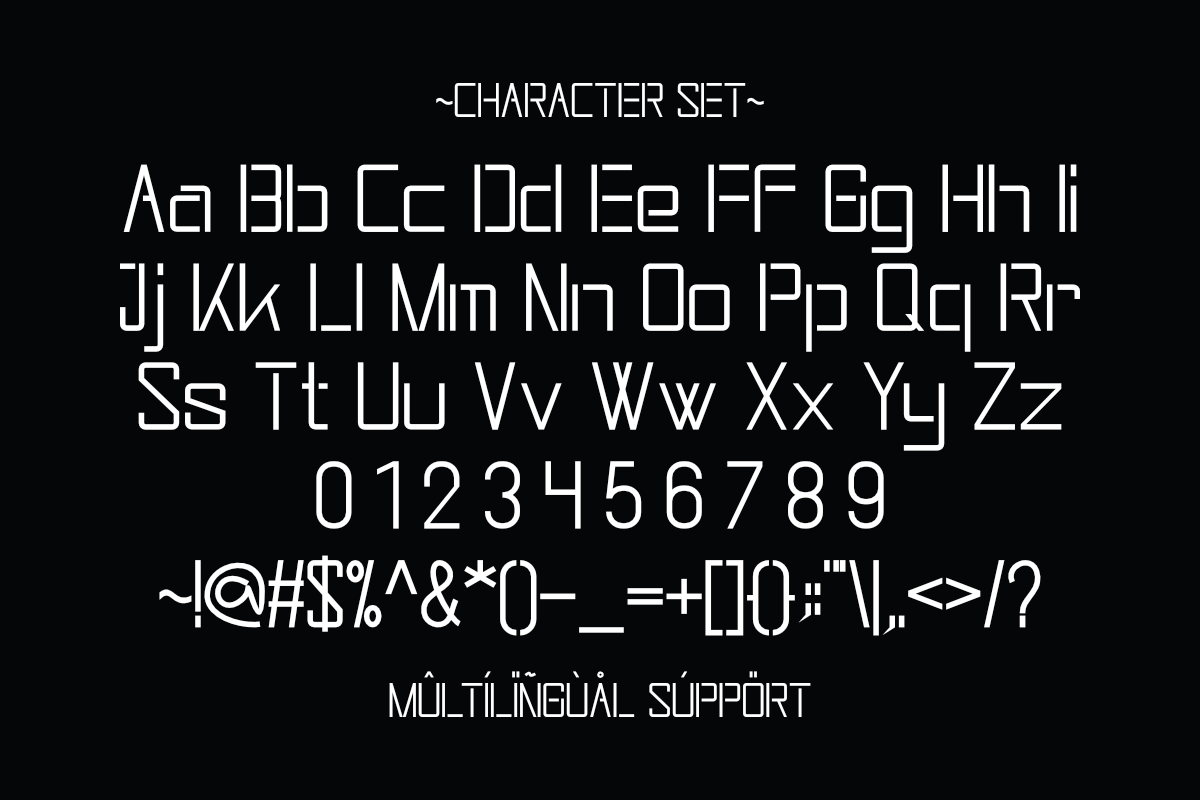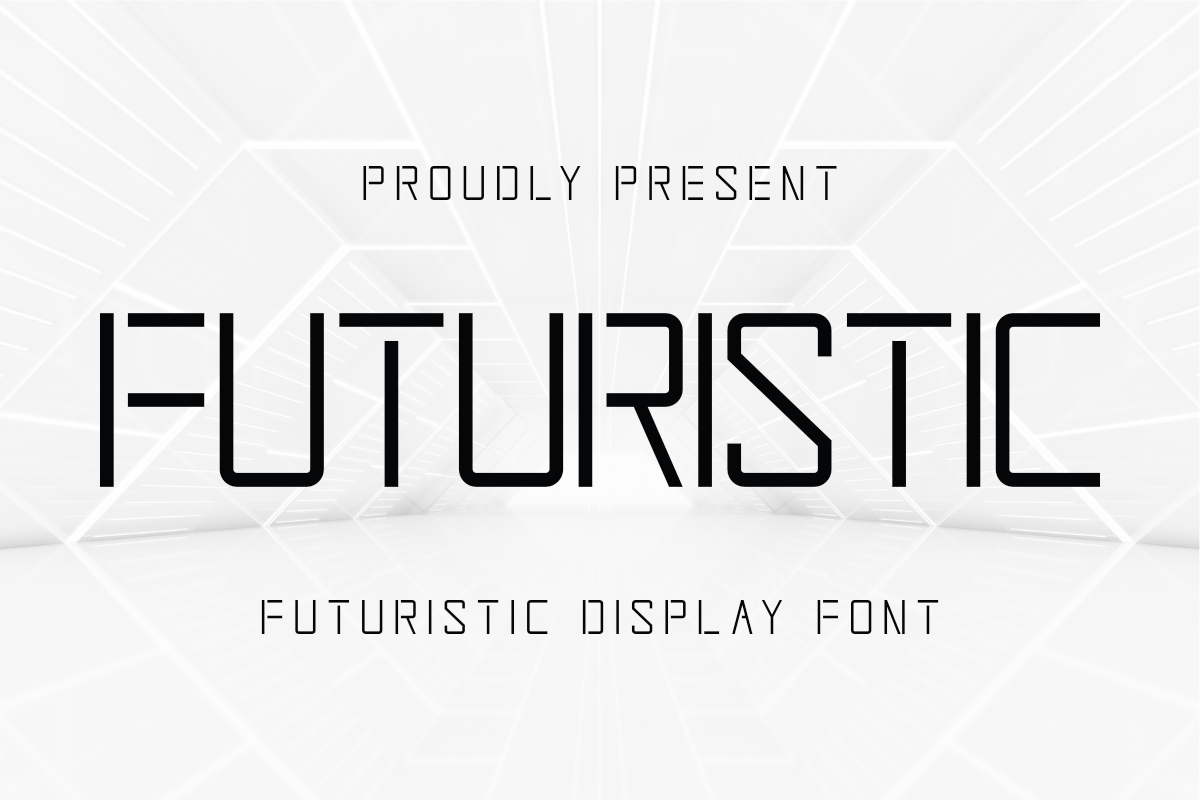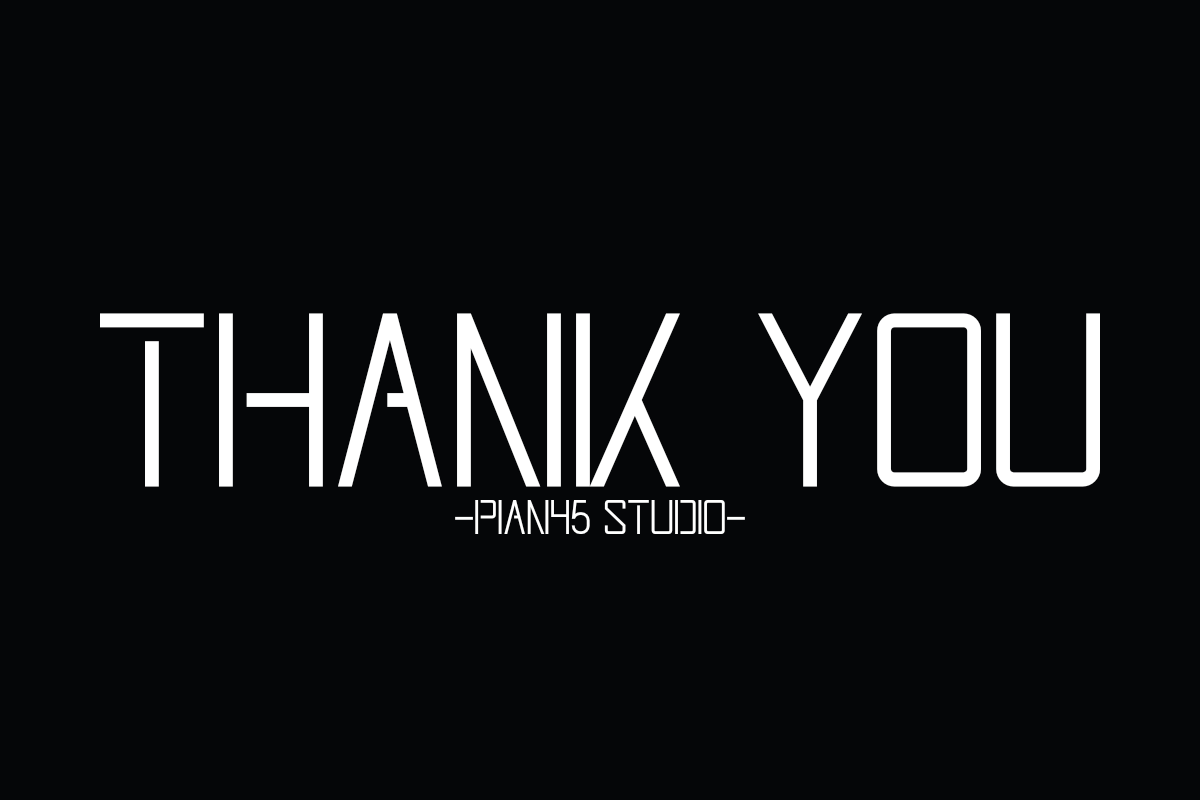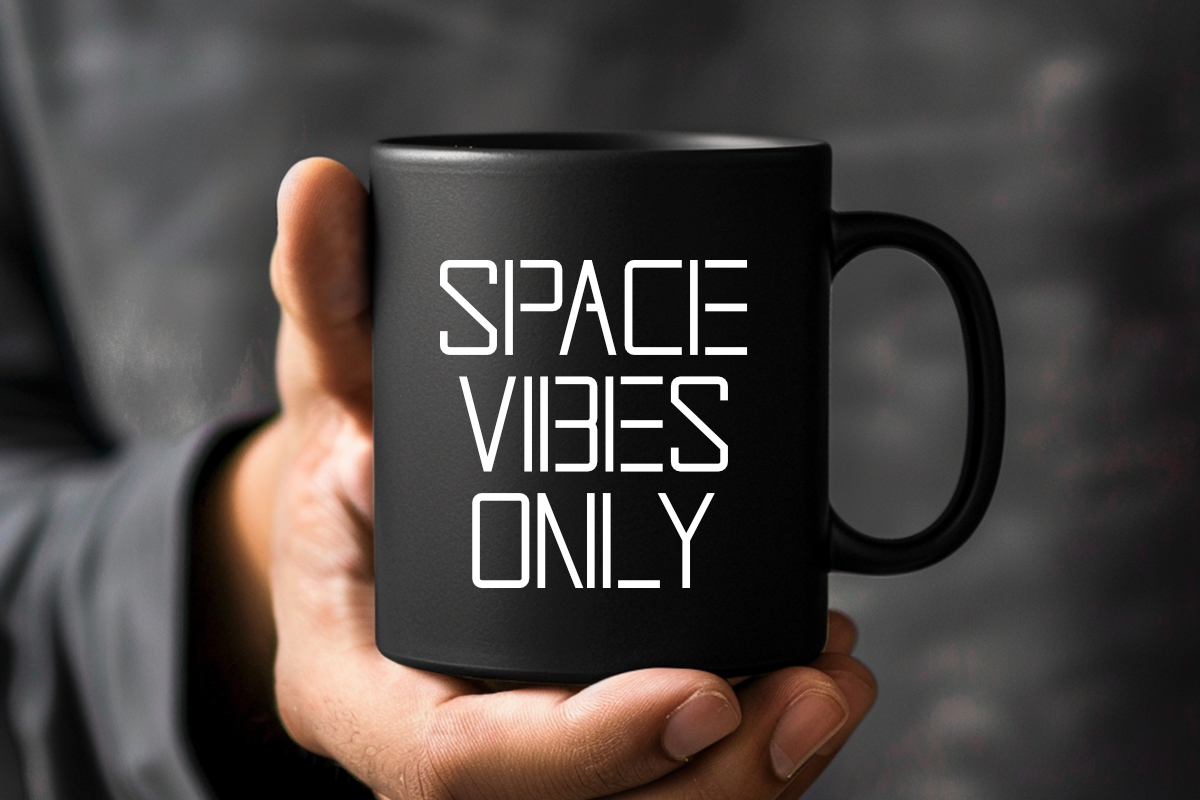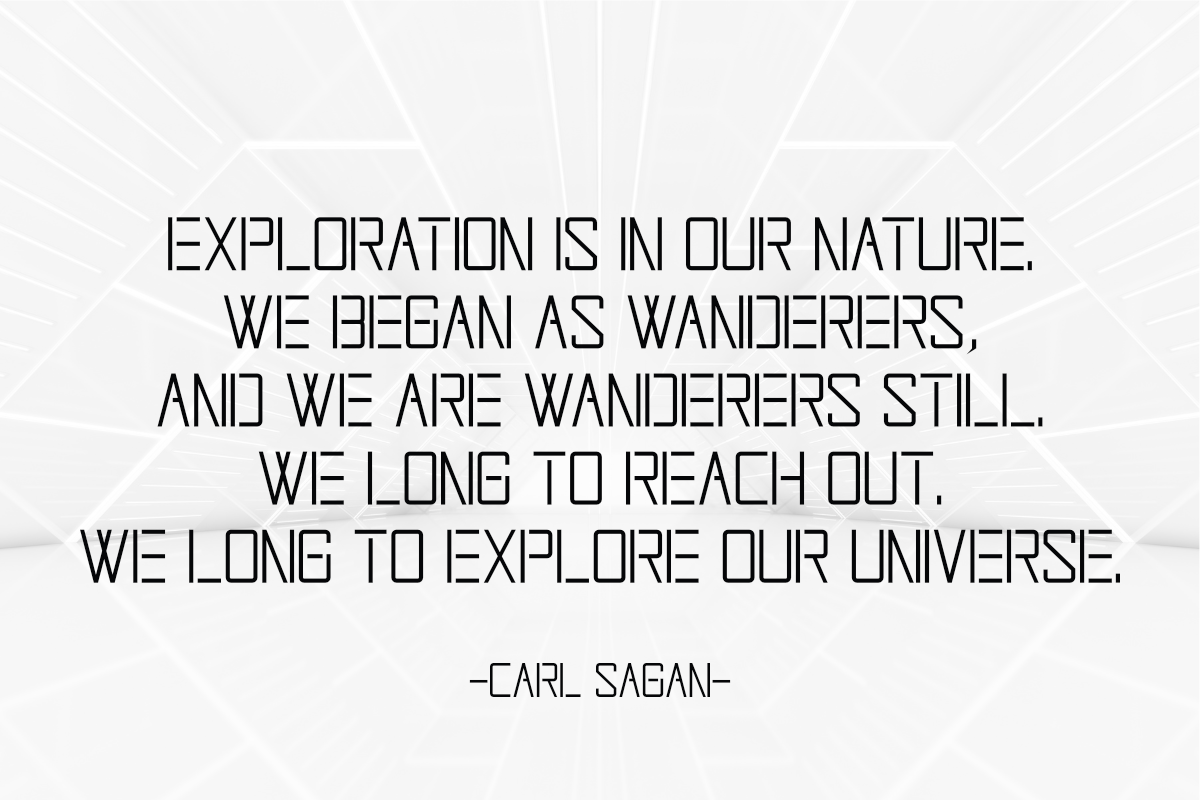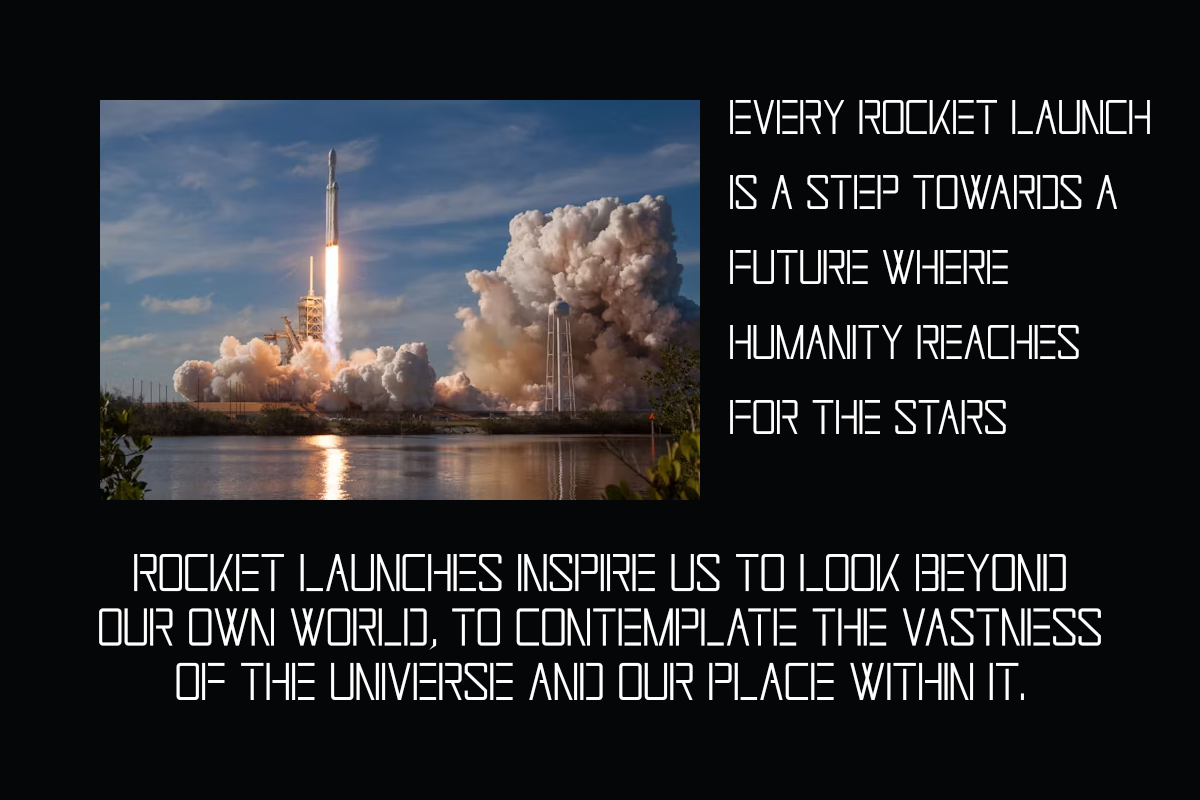
Futuristic - Display Font
Futuristic is a futuristic display font that embodies modern, minimalist, and space-inspired design. With its clean lines and sleek aesthetic, it brings a contemporary and futuristic touch to any project. Perfect for designs that demand a cutting-edge look.